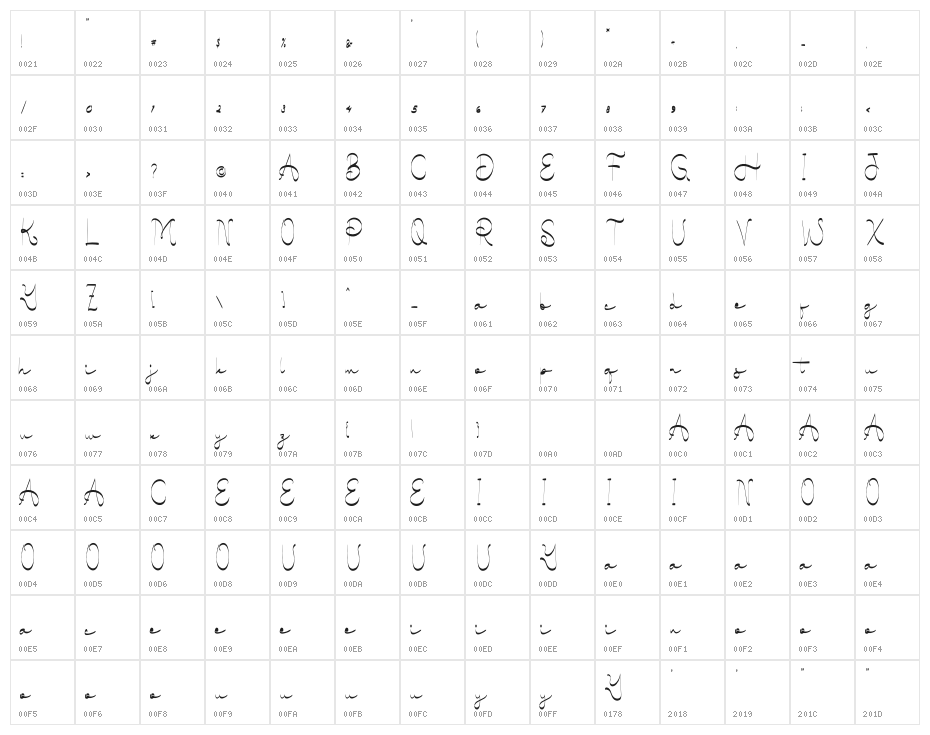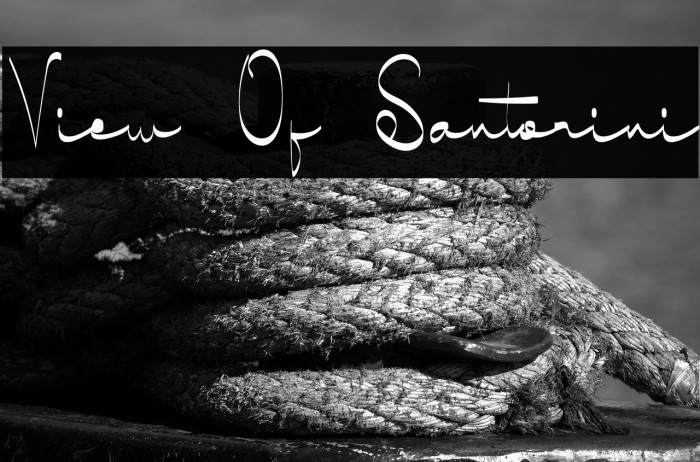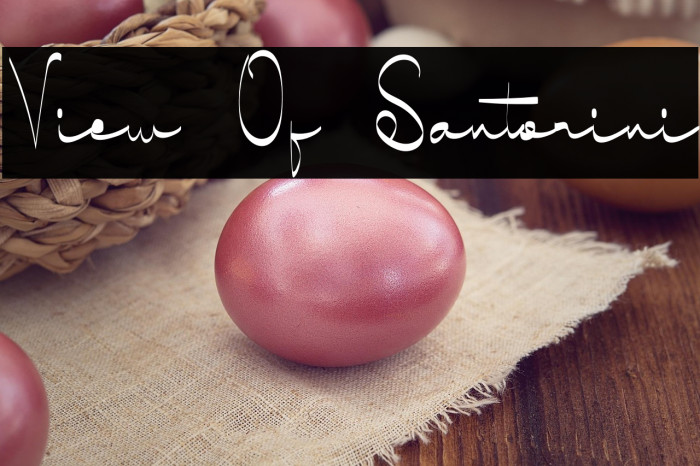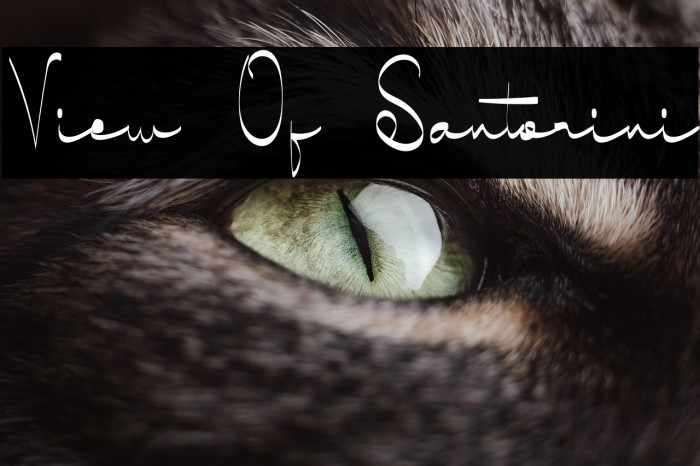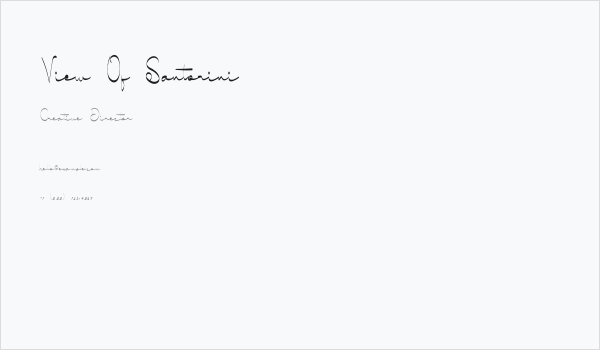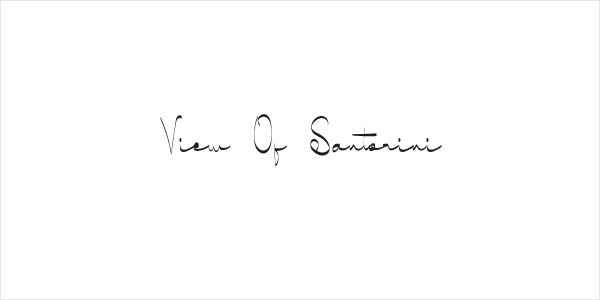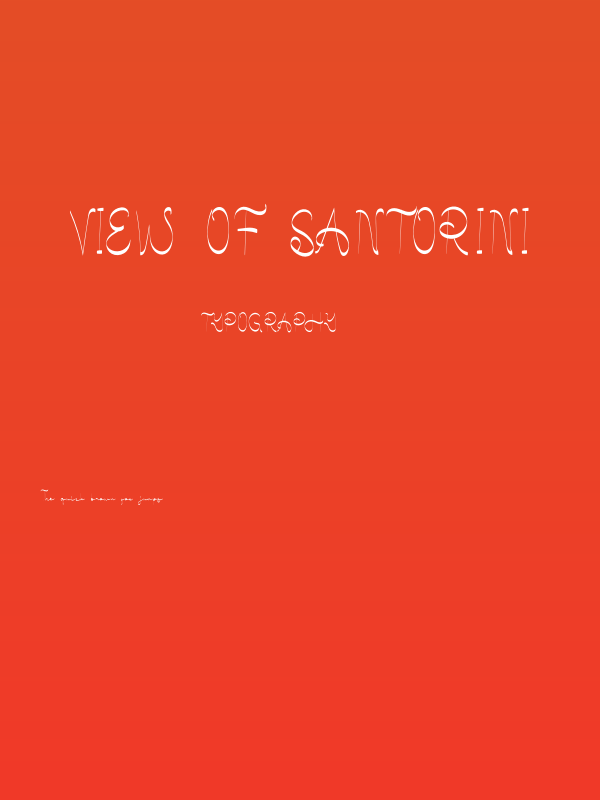
View Of Santorini Font
View Of Santorini Description
This font exhibits a unique blend of elegance and playfulness, characterized by its flowing, cursive style. The uppercase letters are distinct with their elongated, looping strokes, giving a sense of movement and fluidity. The lowercase letters maintain a consistent cursive form, enhancing readability while preserving the font's artistic flair. Numbers and special characters are designed to complement the overall aesthetic, featuring similar curves and loops. The font's thin lines and delicate curves make it suitable for projects that require a touch of sophistication and creativity.
| Overall Style | Elegant, Artistic |
| Use Case | Headlines, Invitations, Artistic Text |
| Proposed Projects | Ideal for wedding invitations, greeting cards, personal branding, and artistic projects. |